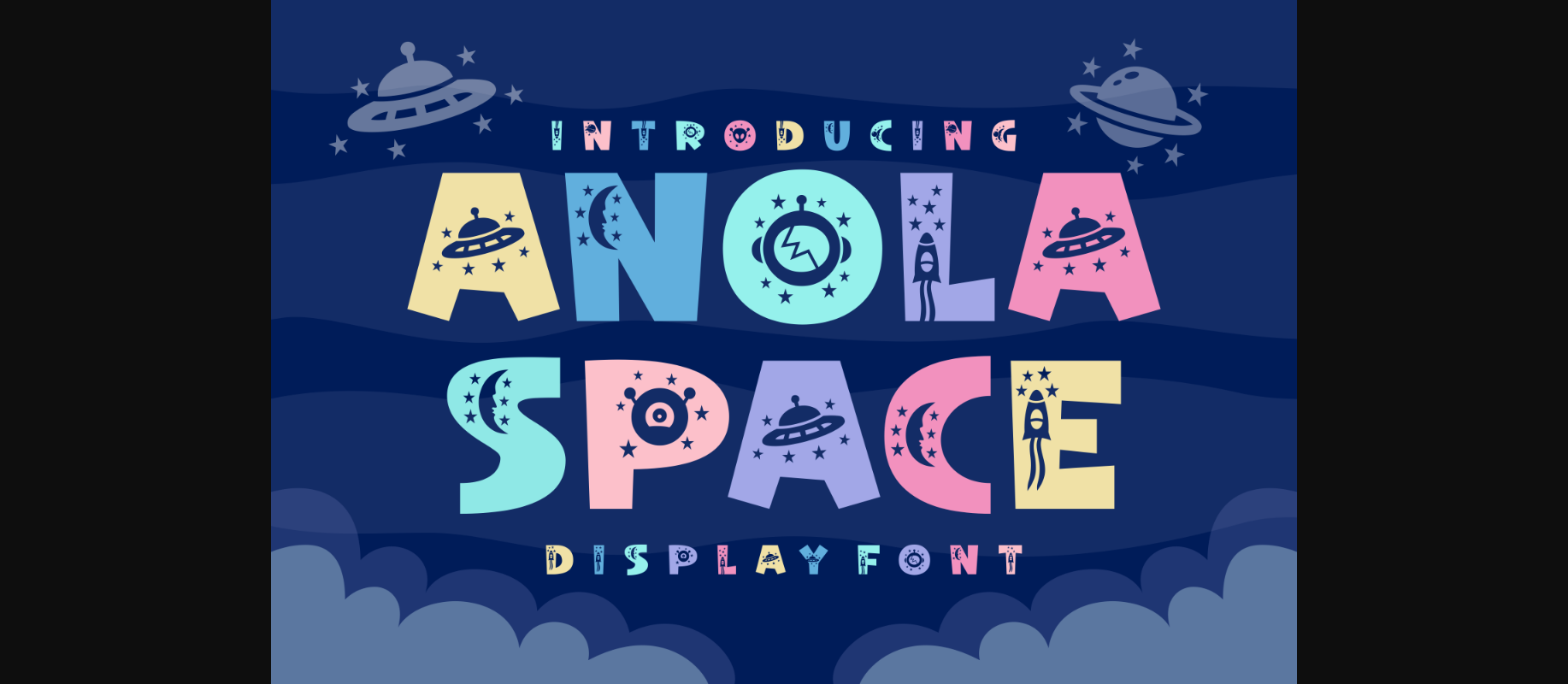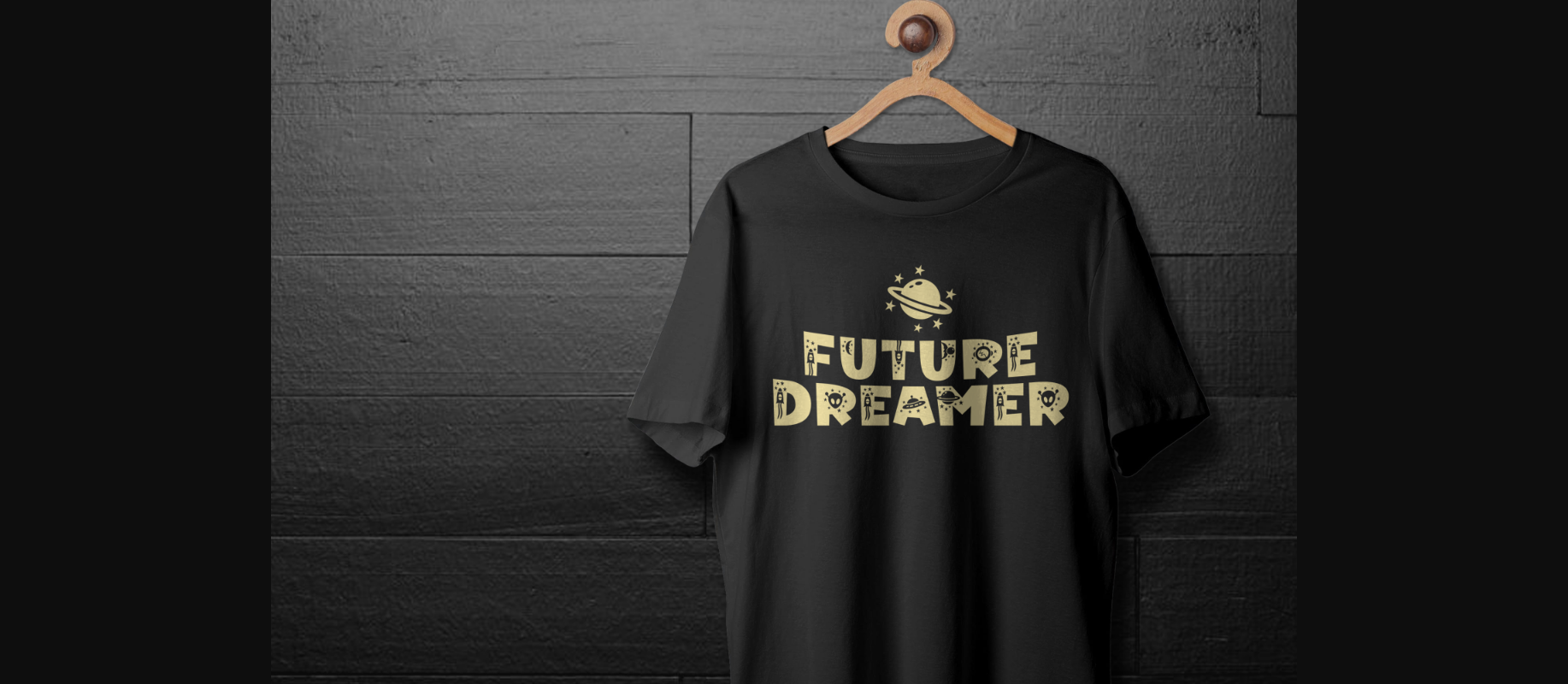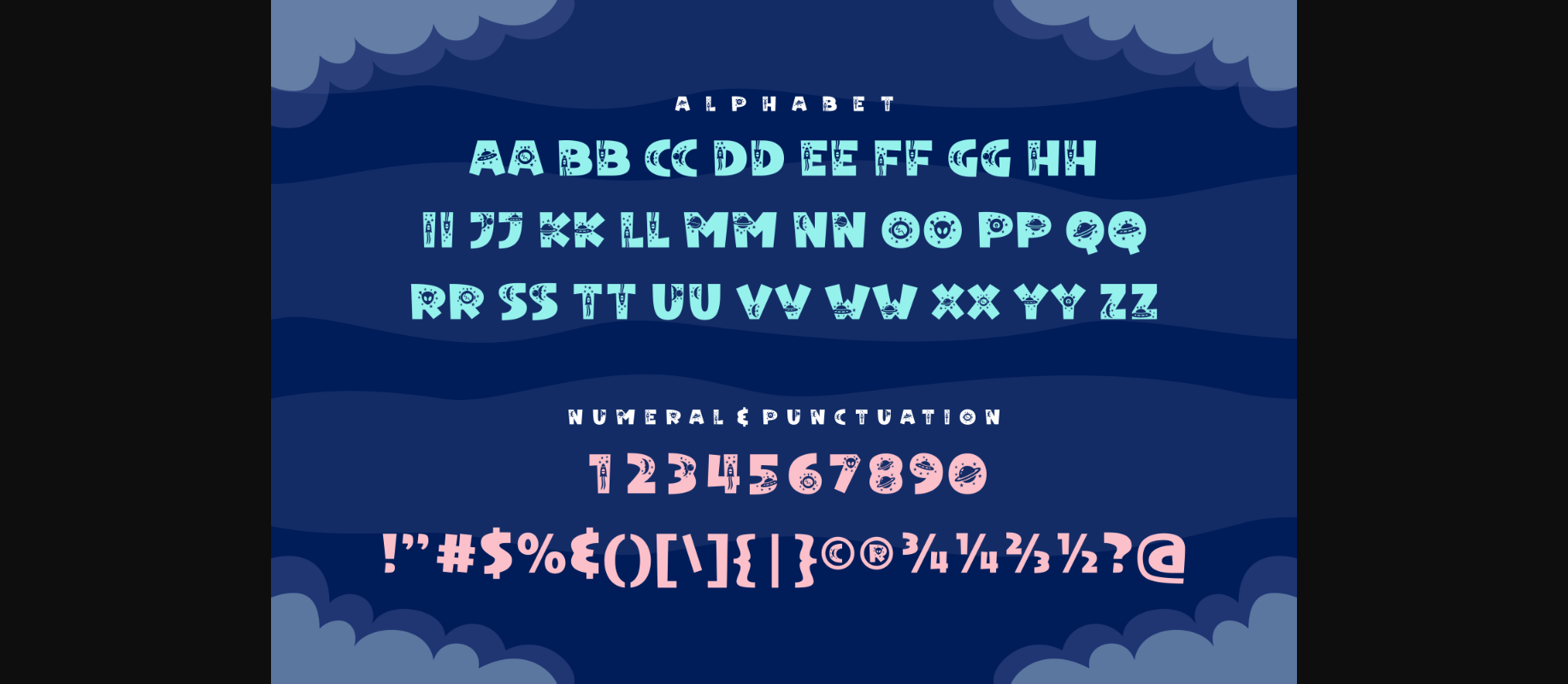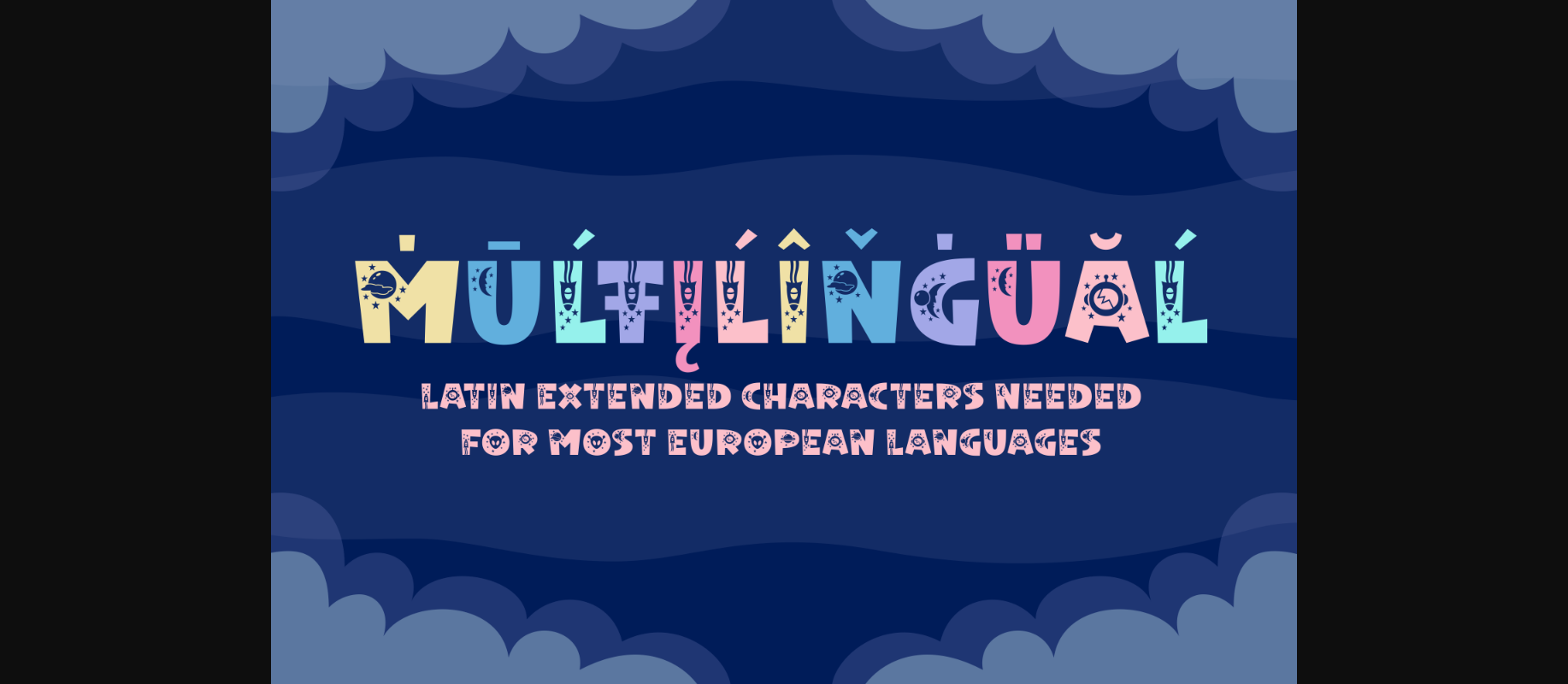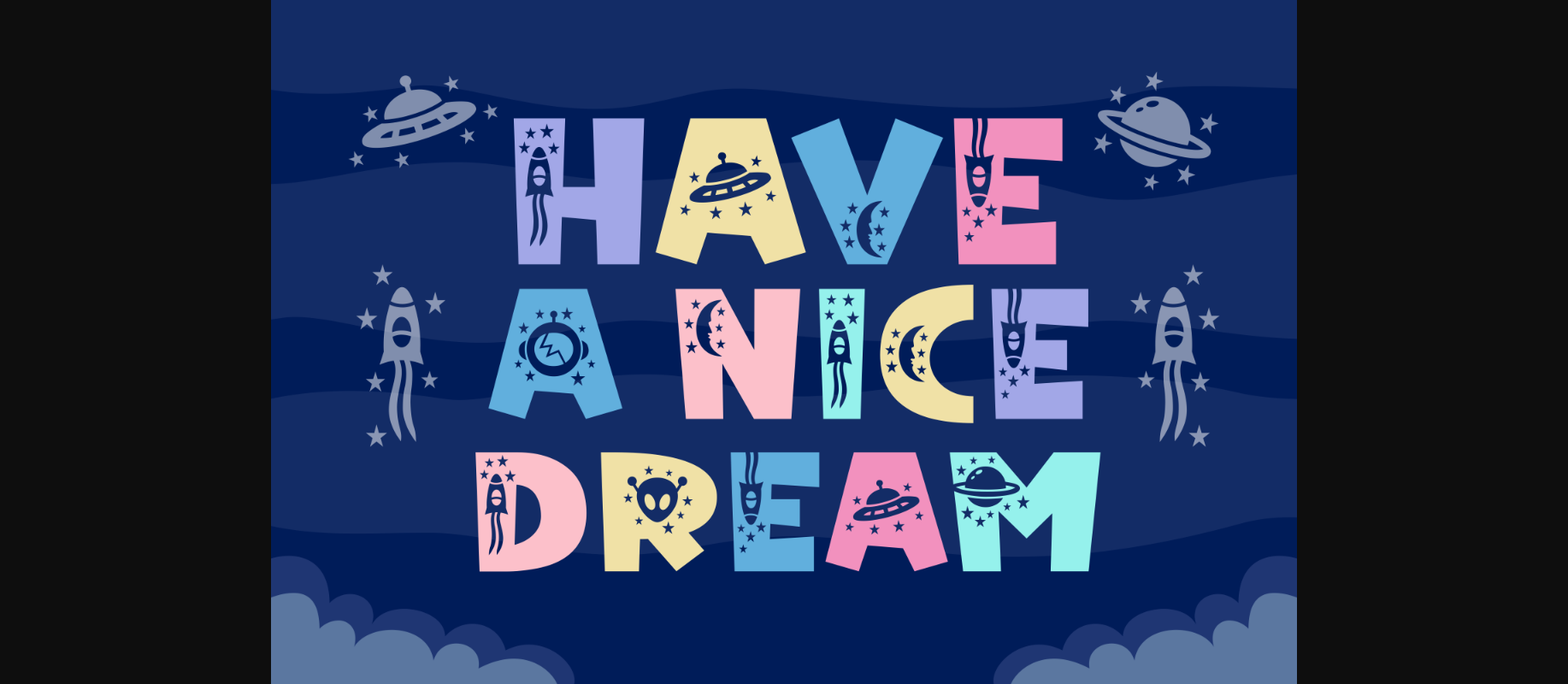
HomeDecorative FontsAnola Space Font Decorative Fonts Anola Space Font FacebookXPinterestWhatsApp 1 of 8 ... Anola Space Font Poster 2... Anola Space Font Poster 3... Anola Space Font Poster 4... Anola Space Font Poster 5... Anola Space Font Poster 6... Anola Space Font Poster 7... Anola Space Font Poster 8... About Anola Space Font Anola Space is a cute and colorful decorative font. It embodies playfulness and authenticity and is the perfect choice for any children activity or school project. DOWNLOAD NOW People also explored Gabita Font Aleysia Font Aztecs Font Chillin Ice Cream Font Lokomot Font Omniface Font Anthony Louis Font Wendling Font Butterflay Font 380 0 TagsAnola Space Font Previous articlePeacock FontNext articleMonojack Font LEAVE A REPLY Cancel reply Comment: Please enter your comment! Name:* Please enter your name here Email:* You have entered an incorrect email address! Please enter your email address here Website: Save my name, email, and website in this browser for the next time I comment. Personal Use Free Unispace Personal Use Free Read more about this font Kellana Personal Use Free Read more about this font Houstonville Personal Use Free Read more about this font BD RatterBit Personal Use Free Read more about this font BLOG How to Cut Any Font on Cricut: Convert a Font to SVG (Free) Turn any font into a clean SVG so it cuts crisp on Cricut - a quick 3-step workflow using a free font-to-SVG tool. Modern Sans-Serif Fonts That Brands Love in 2025 Best Fonts for YouTube Videos: Make Your Thumbnails Stand Out Fonts That Capture the Spirit of New York City